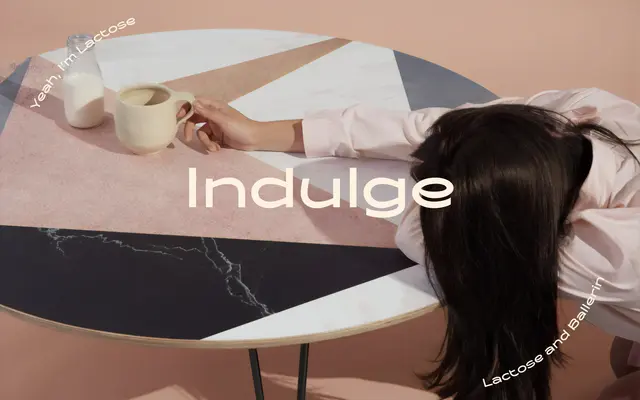
A wide, single-style display sans from That That Type, built for large-scale headline and poster use.
Baou is a wide display sans serif offered in a single Display style, covering Basic Latin, Latin-1 Supplement and Latin Extended-A character sets. Its broad proportions and high cap height make it suited to headlines and poster work where width and presence matter. The single weight limits its versatility but keeps its character focused.
Explicitly described as a wide display sans serif; the single Display style and broad proportions place it firmly in the display category with no text weight utility.